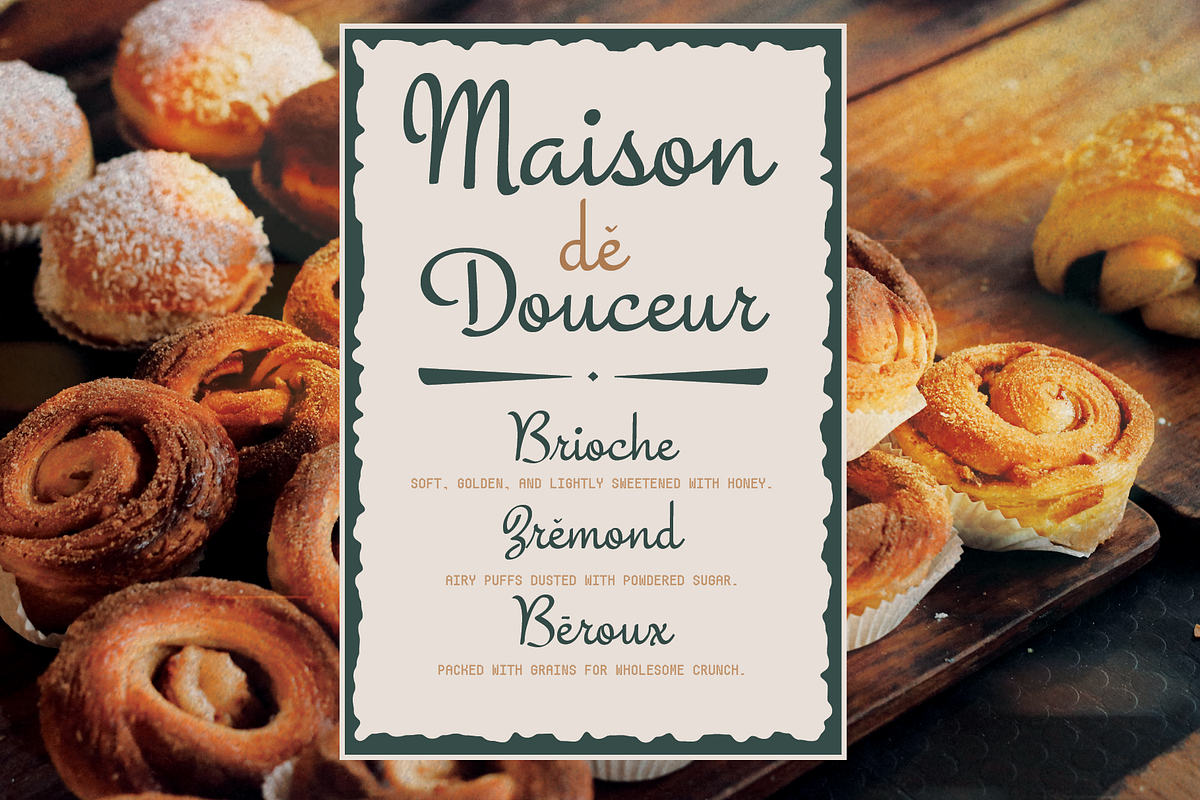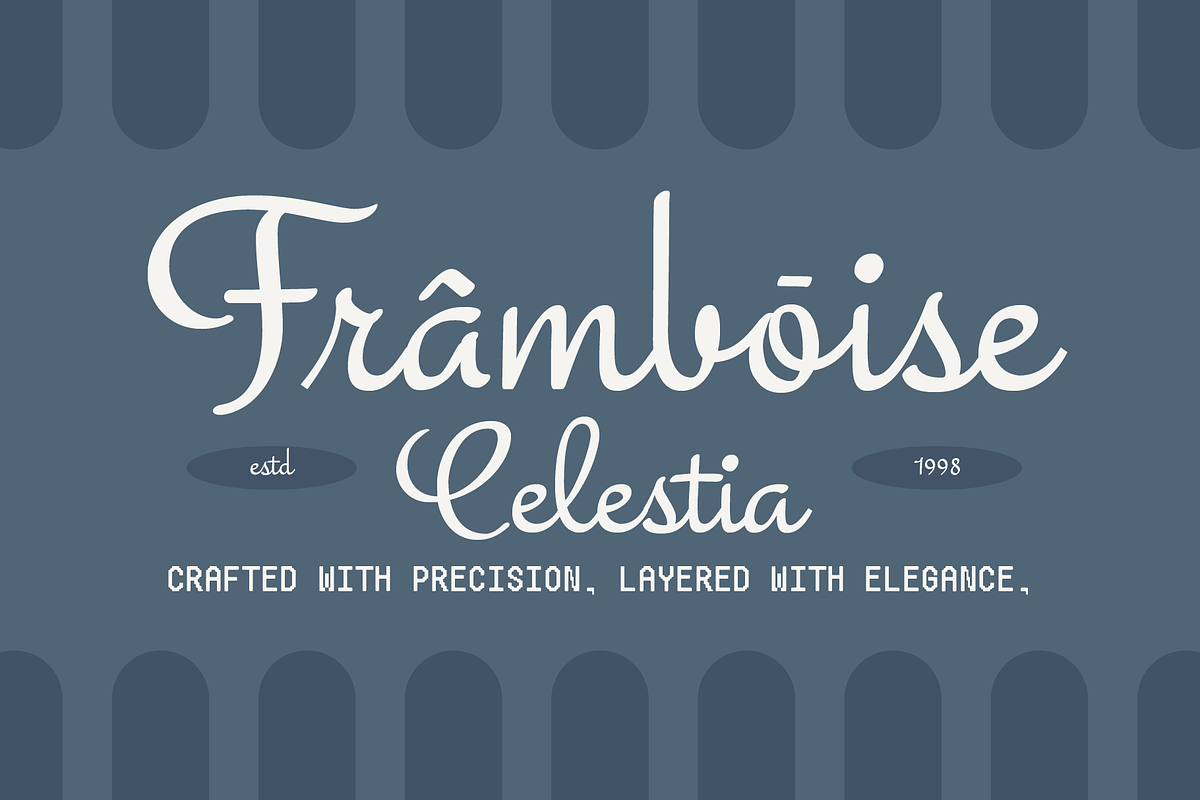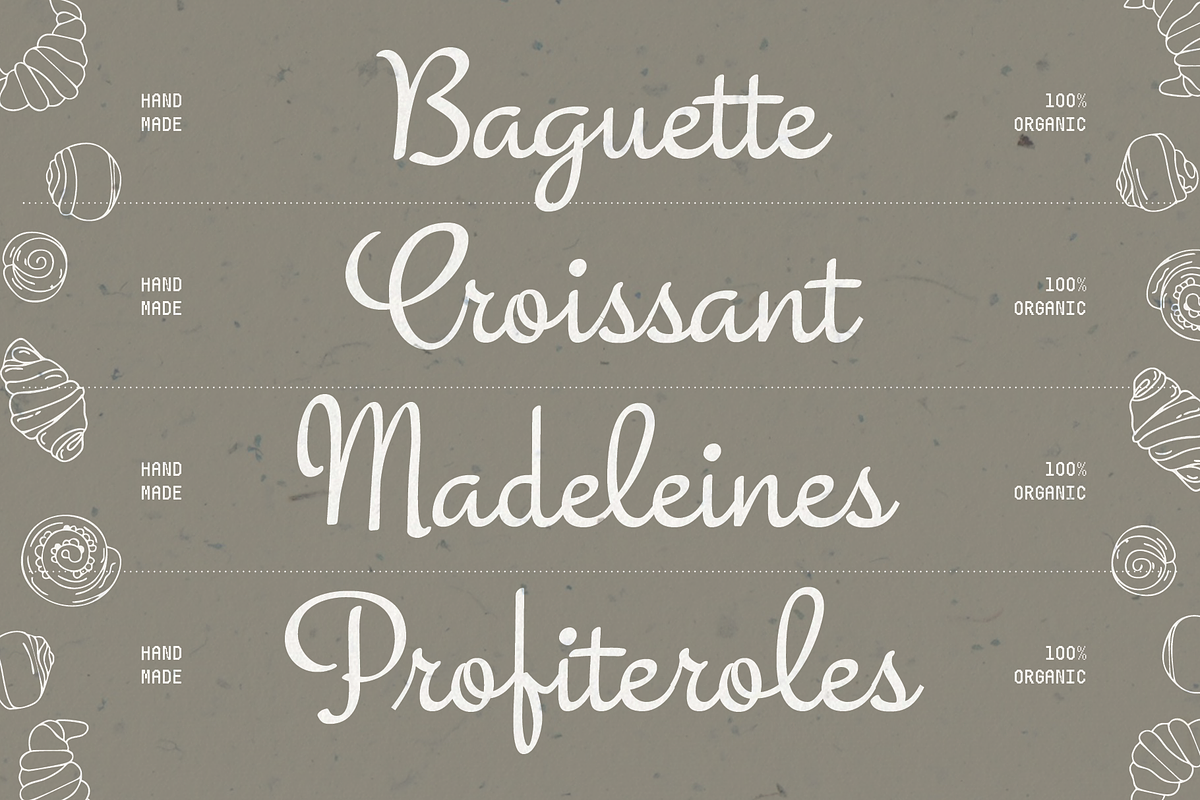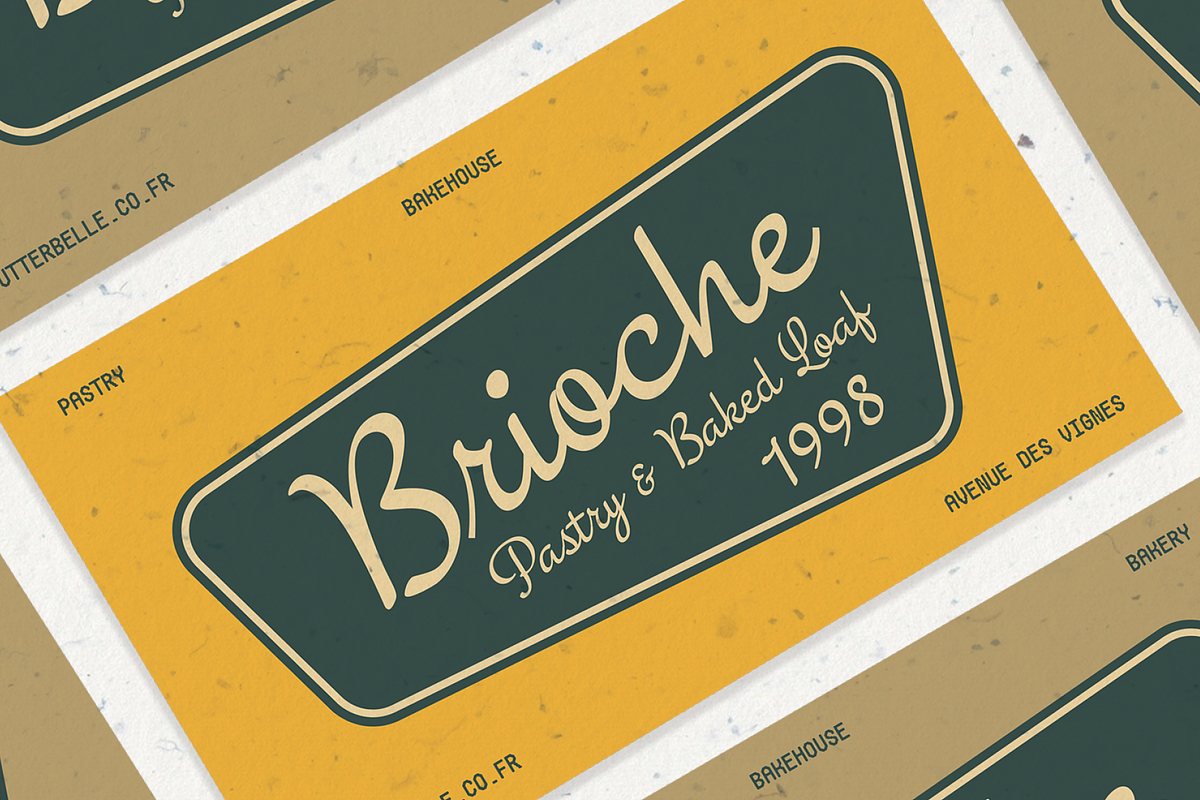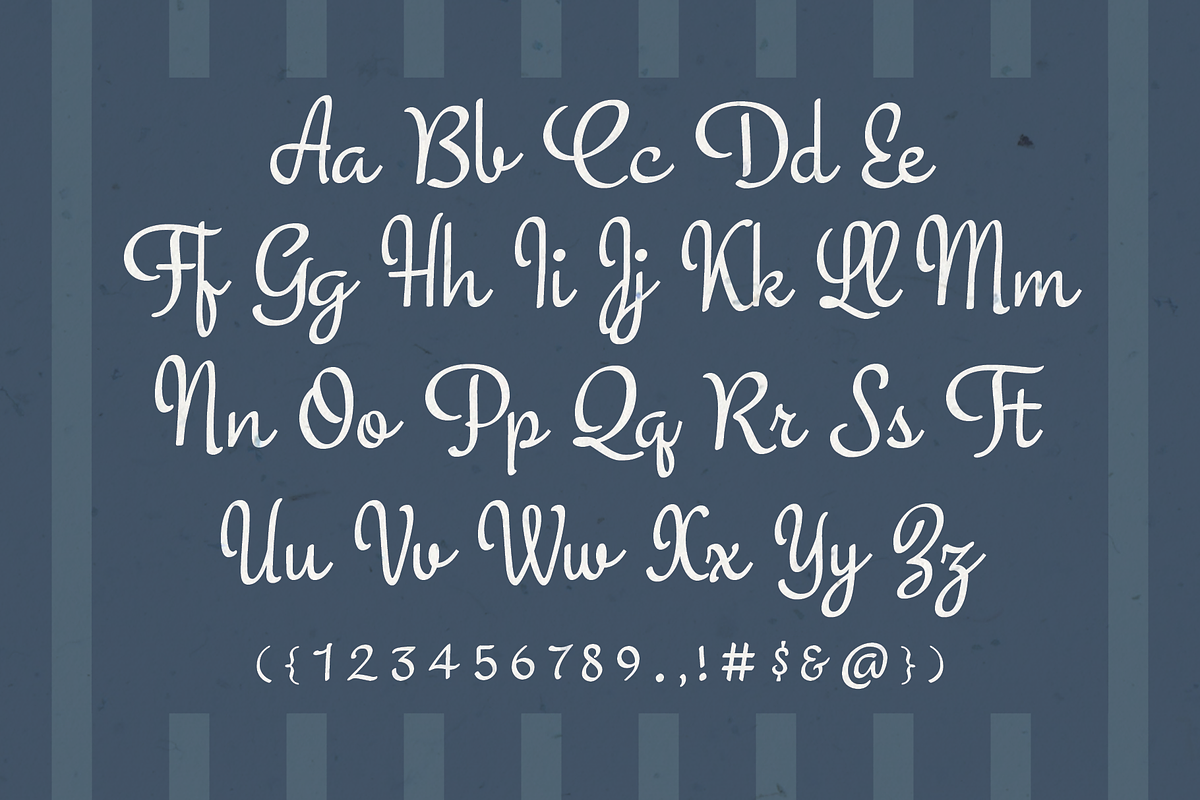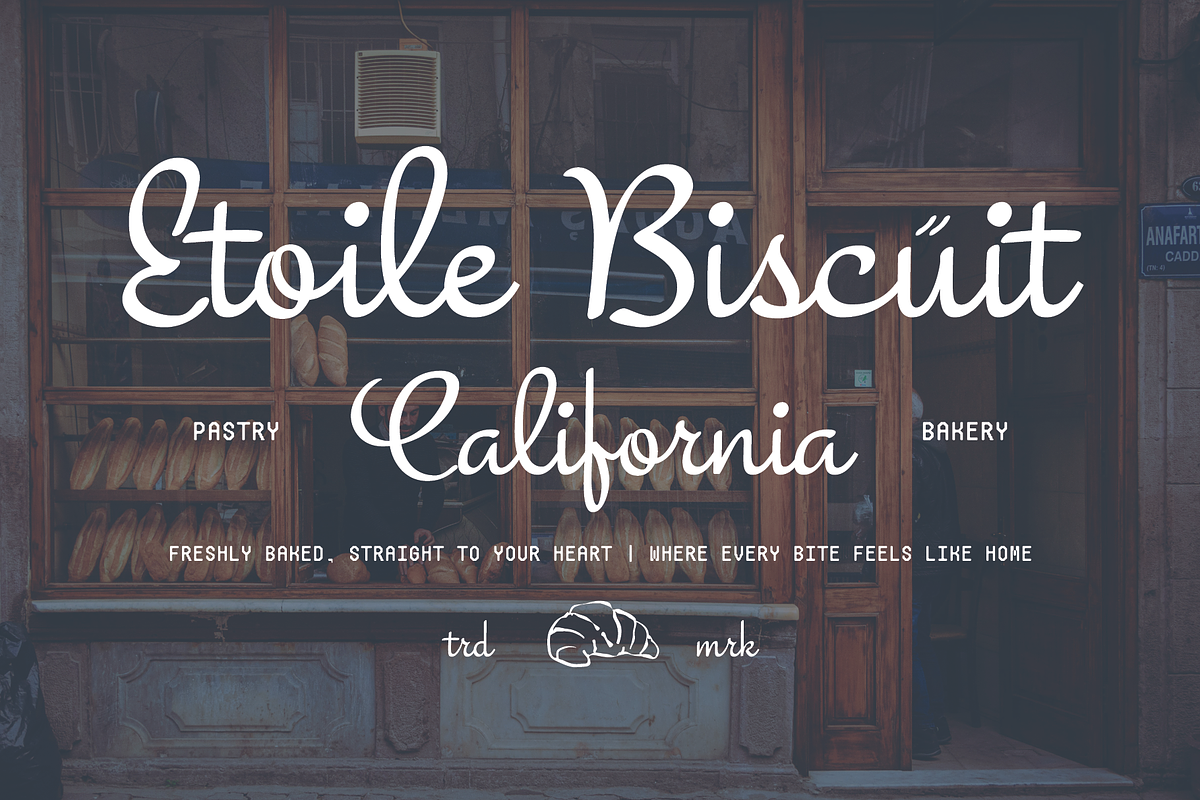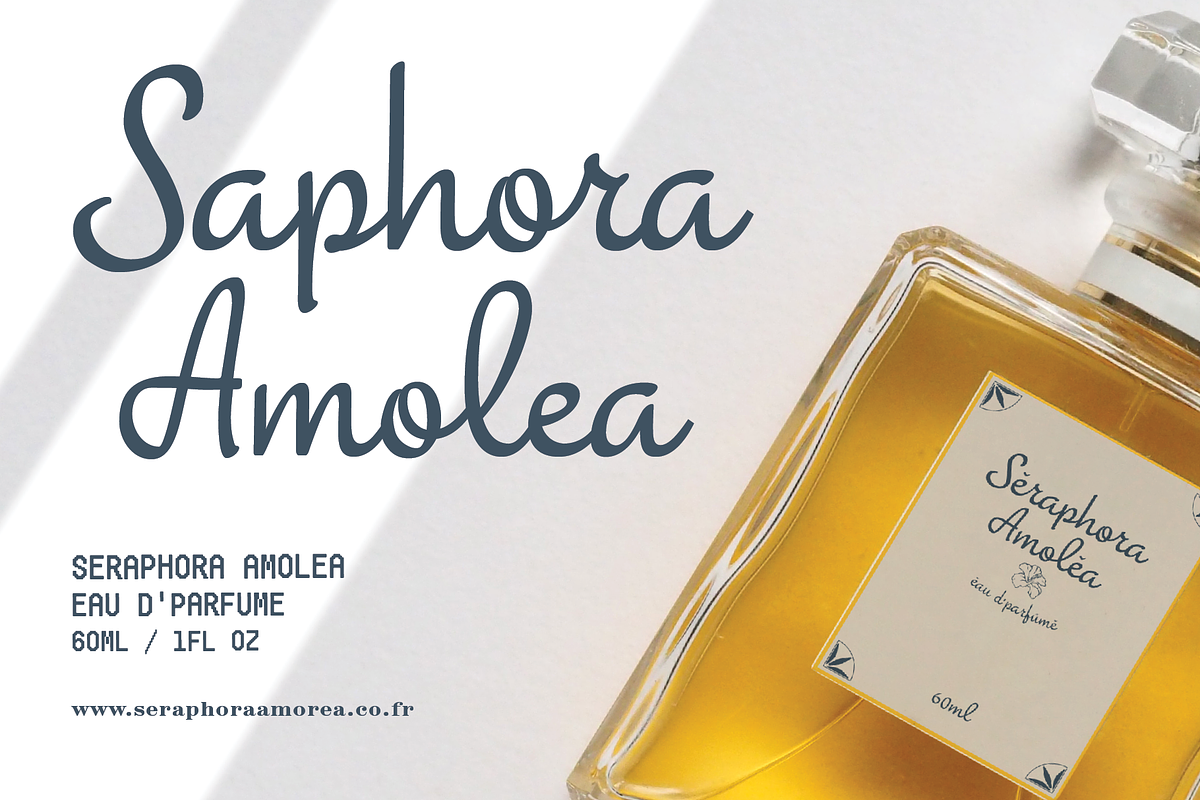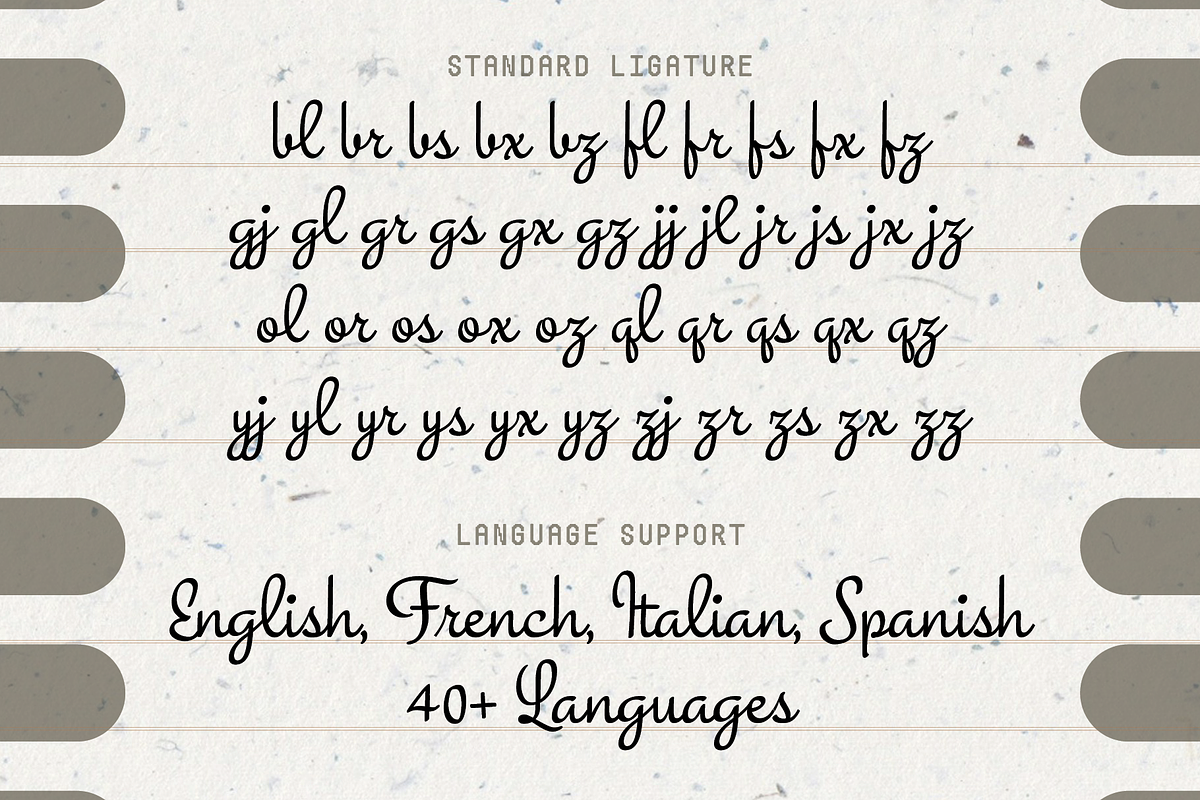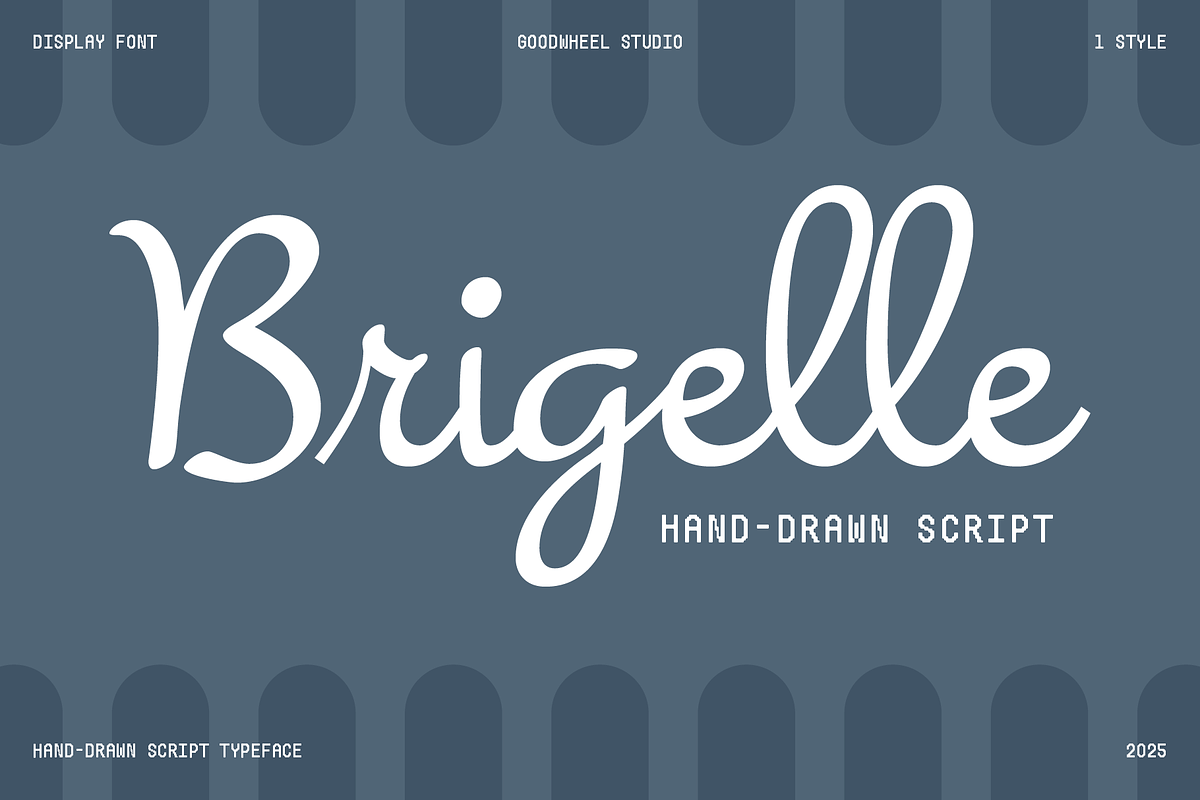
GW Brigelle
Brigelle is a stunning hand-drawn script font designed to add a personal, artistic touch to your projects. With its fluid, elegant curves and organic flow, Brigelle is perfect for creating sophisticated branding, packaging, invitations, and more. Whether you're designing for a wedding, an elegant product, or a creative boutique, this typeface will instantly elevate your work with its charming, handwritten style.